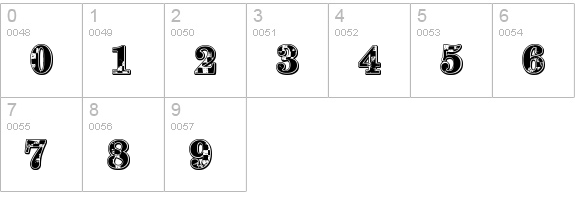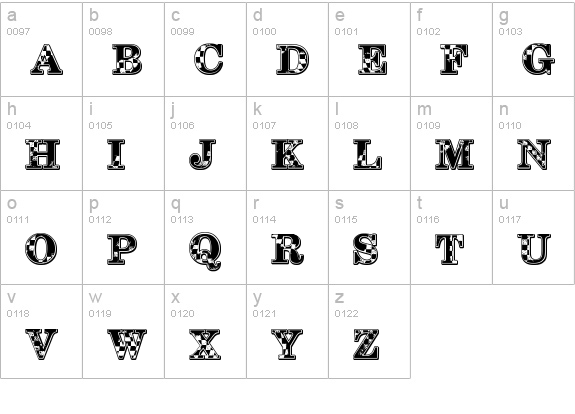
1-2-3 GO! Font Details
1-2-3 GO! font is a dynamic and playful typeface that exudes energy and excitement. With its bold and modern design, this font is perfect for grabbing attention and making a statement. Whether you're creating posters, flyers, or social media graphics, 1-2-3 GO! font will add a touch of fun and vibrancy to your projects. The best part? 1-2-3 GO! font is completely free to download at FontsMarket.com. That's right, you can easily access this eye-catching font at no cost, making it a fantastic option for designers on a budget or anyone looking to add a touch of flair to their work without breaking the bank. Don't miss out on the opportunity to enhance your designs with the bold and energetic 1-2-3 GO! font. Download it now for free and let your creativity soar!